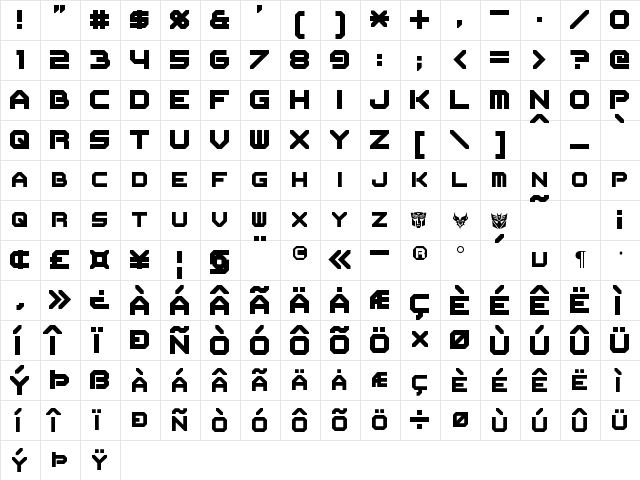
Flipbash Regular
Design Context for Flipbash Typeface
Flipbash takes a measured approach to typography — its balanced proportions and neutral character make it a reliable workhorse for both digital and print work.